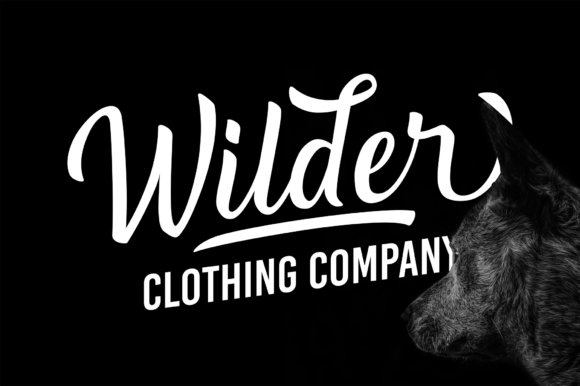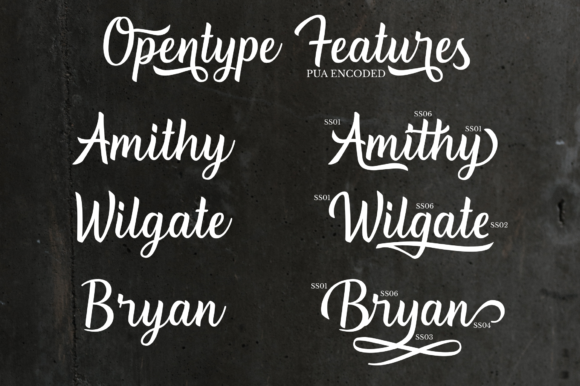
Southville Font
db-ku.com - Script & Handwritten -- The Southville is an amazing hand-lettering font. It includes beautiful swashes and has a strong look which can be used for logos, branding, wedding invitations, titles, signatures, t-shirts, letterheads, signboards, labels, posters and much more!